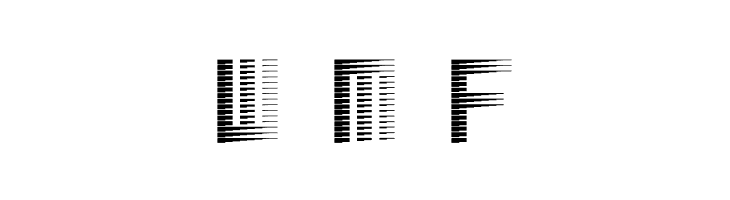
Patches Font
- Font: Patches
( Fonts by Dave Fabik - home.teleport.com/~dfabik/ )
A modern, glitch-inspired font with dynamic horizontal lines and playful lowercase letters.